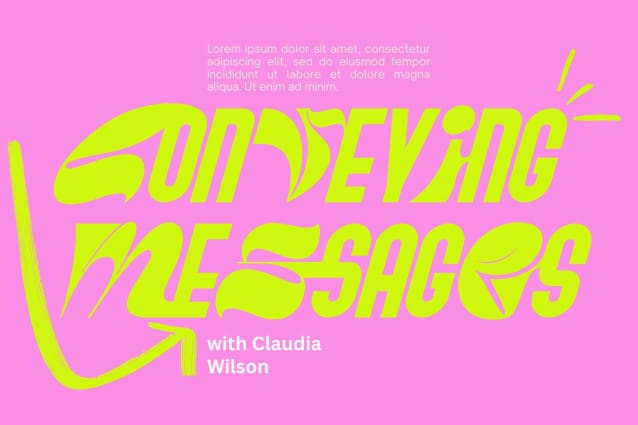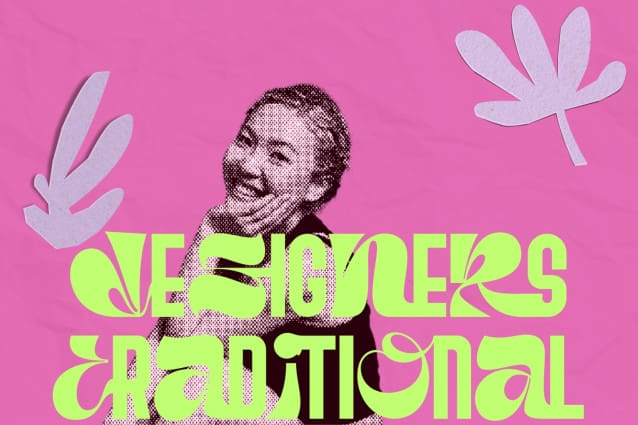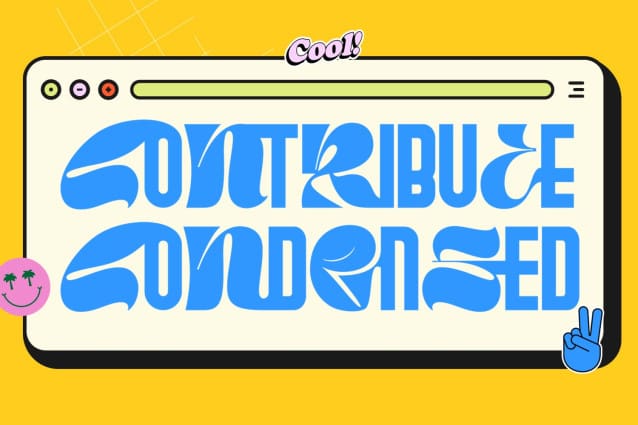
Contribute Condensed Font
Contribute Condensed Font is a beautiful and inspiring mix of playful and condensed sans-serif with 100 unique ligatures. A delightfully playful pairing of Sans and Script fonts. It is playful and fun. It is perfect for posters, Instagram, magazines, print, branding, logos , and whatever you can imagine. That That is super proud of this one.
Contribute Condensed was built with OpenType features and includes 100 ligatures, alternate, numbers, punctuation, and it also supports other languages.
AC AD AL AN AR AS AT AU AV BE CA CE CH CO CT DE DI EA EC ED EE EL EM EN EP ER ES ET FE FO FR GE HA HE HI HO IE IC IL IN IO IR IS IT JU KE LA LE LI LL LO LY MA ME MI NC ND NE NG NO NT NS OC OF OM ON OO OP OR OT OU OW PA PR RA RD RE RI RO RS RT SE SH SI SO SS ST TA TE TH TI TO TR TT UM UN UR VE WI WO